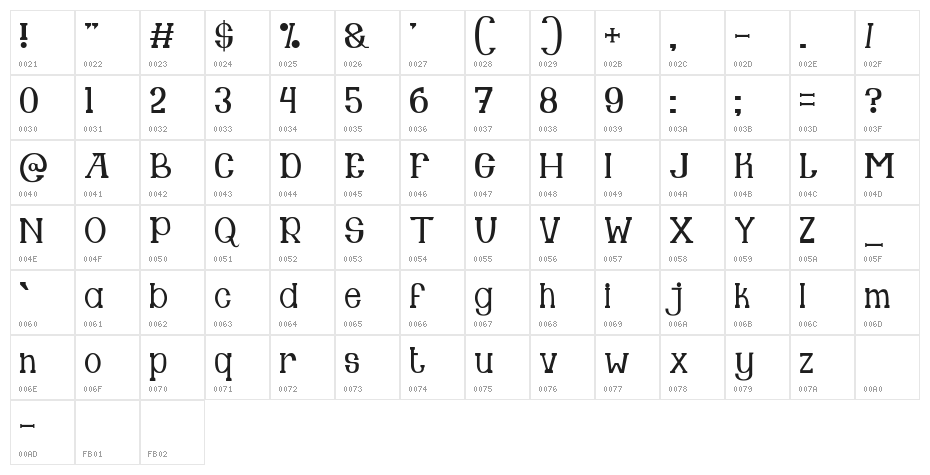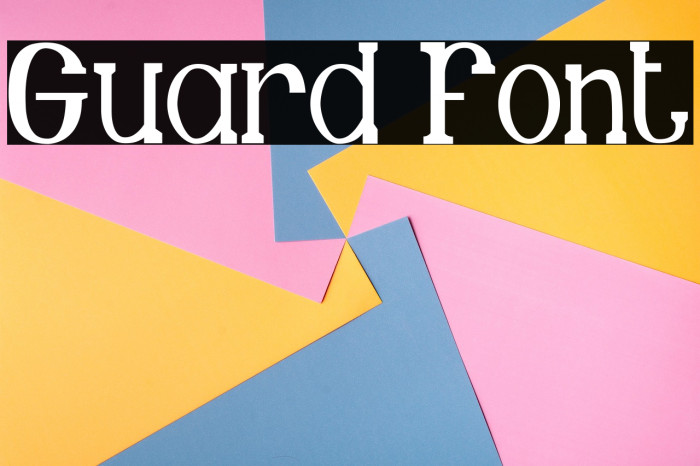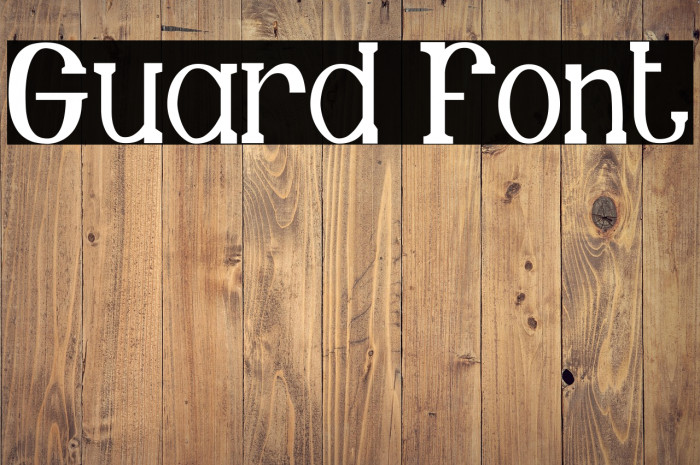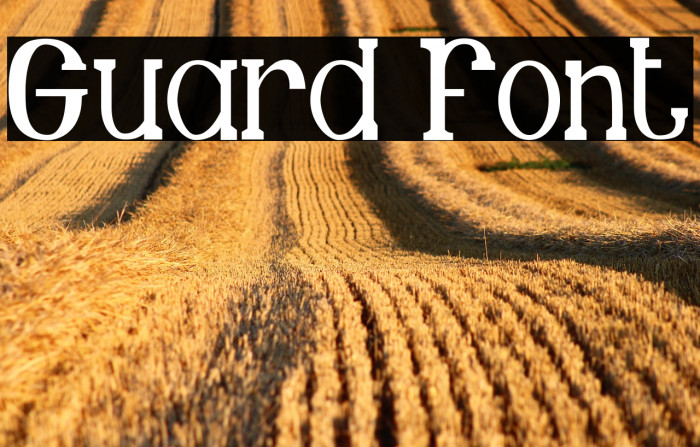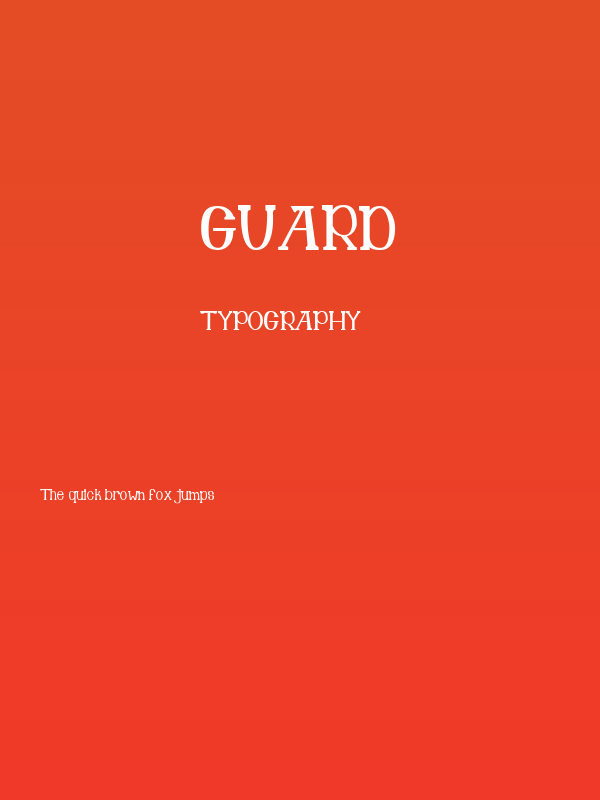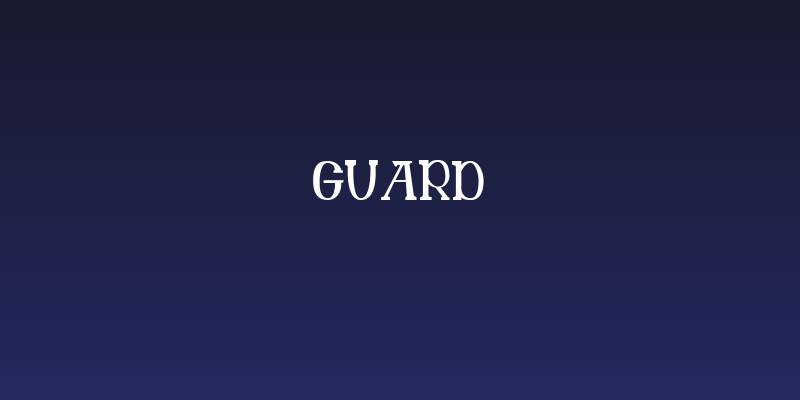
Guard Font
Guard Description
This font features a bold and distinctive style with a strong presence. The uppercase letters are characterized by their tall and slightly condensed form, with unique serifs that add a touch of elegance. The lowercase letters maintain a consistent style, offering a harmonious blend with the uppercase. Numbers are bold and clear, making them easily readable. Special characters are creatively designed, maintaining the overall aesthetic of the font. The font's design is both modern and classic, making it versatile for various applications.
| Width | Condensed |
| Overall Style | Modern, Classic |
| Proposed Projects | Ideal for branding, headlines, posters, and any design project that requires a strong, elegant typeface. |